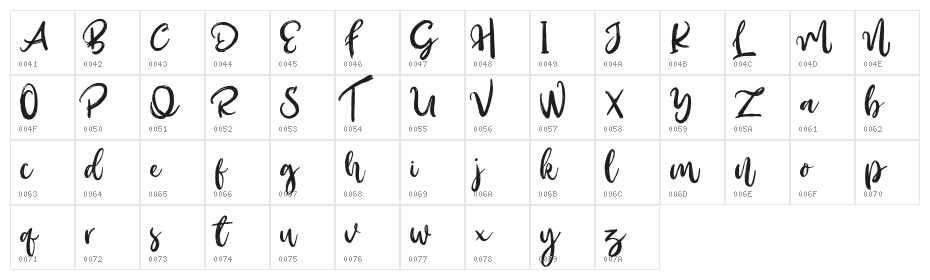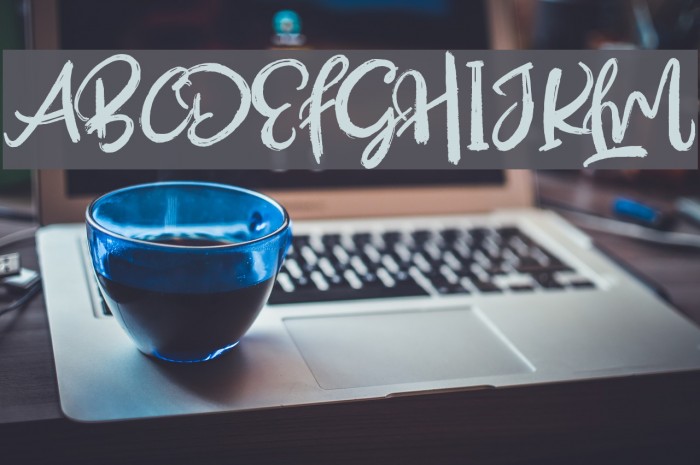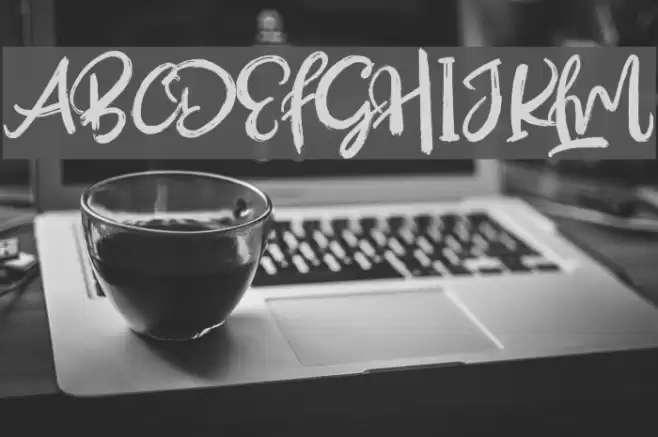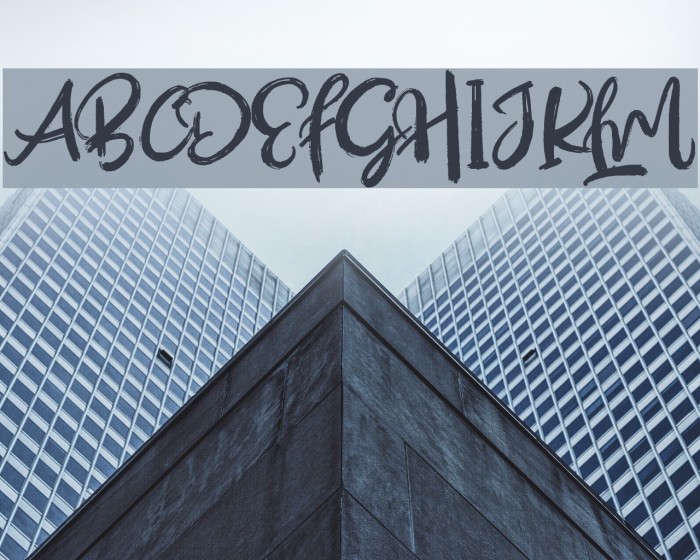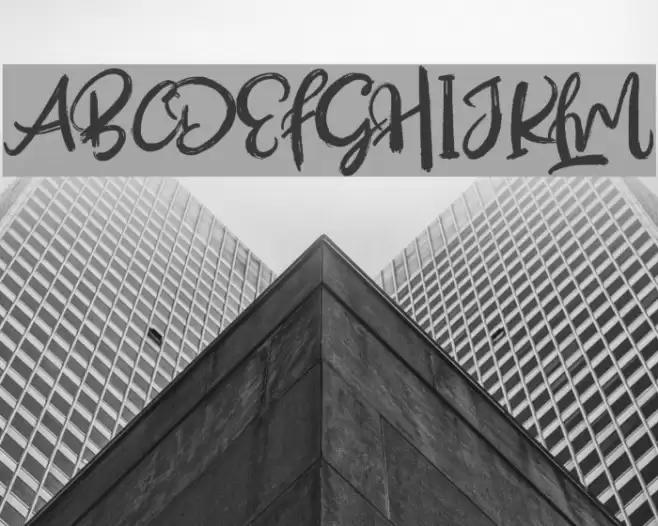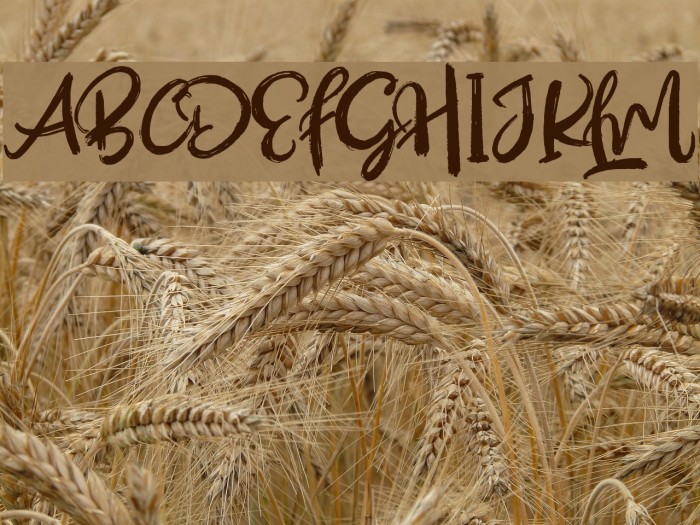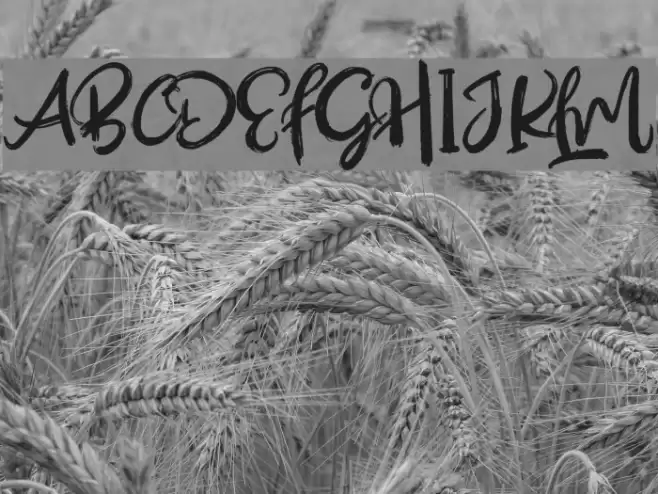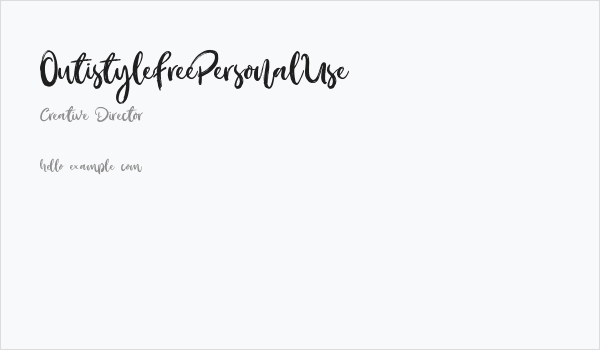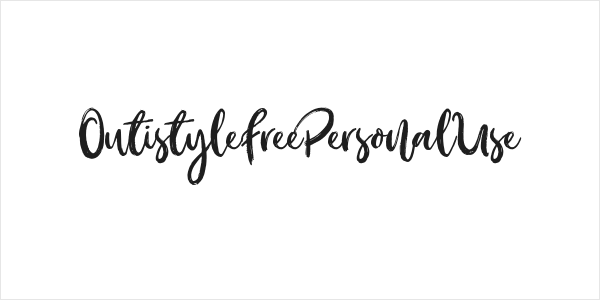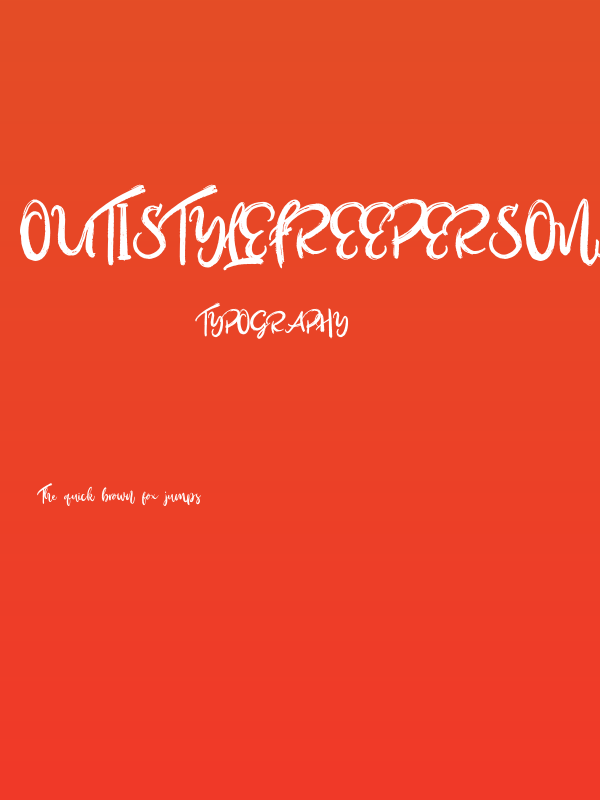
OutistyleFreePersonalUse Font
OutistyleFreePersonalUse Description
This font features a bold and expressive handwritten style, characterized by its fluid and dynamic strokes. The letters exhibit a natural, brush-like texture, giving them an artistic and personal touch. The uppercase and lowercase letters maintain a consistent style, with some letters extending slightly beyond the baseline, adding to the font's lively appearance. The overall design is both playful and elegant, making it suitable for creative projects that require a personal and artistic flair.
| Proposed Projects | Ideal for greeting cards, invitations, branding projects, and artistic posters. |